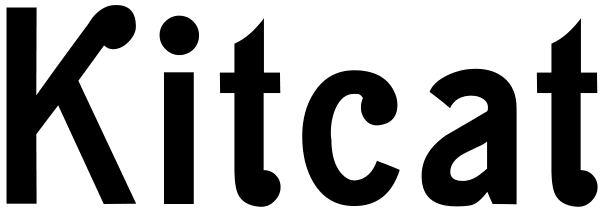
Kitcat
This was a favorite of the old time job printers; decorative but readable. The MacKellar foundry was the largest and most creative of the old foundries, and decorative fonts like this one came out at the rate of several every year.